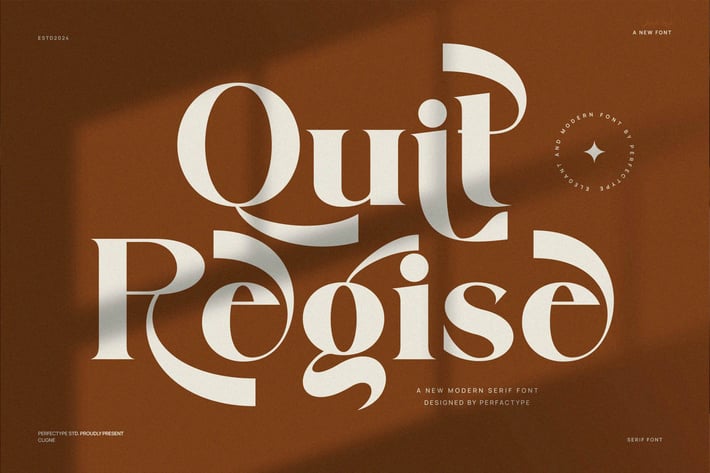
Quit Regise Elegant Serif Font Typeface
Quit Regise Elegant Serif is a refined and luxurious typeface designed to bring timeless beauty to your creative projects. With its graceful serifs, delicate curves, and exquisite ligatures, this font embodies sophistication and modernity in perfect harmony. Every letter is meticulously crafted to exude elegance, making it an ideal choice for premium branding, editorial designs, high-end packaging, and luxury advertisements.
The versatility of Quit Regise allows it to seamlessly adapt to a wide range of design aesthetics, from minimal and contemporary to bold and expressive. Whether you're designing a fashion magazine, an elegant website, or a chic boutique logo, this typeface enhances your visuals with a polished and high-end appeal. Its unique alternates and fluid ligatures add a distinctive character, ensuring your typography stands out with refinement and style.
Perfect for industries such as fashion, beauty, lifestyle, and luxury goods, Quit Regise captures attention with its high-contrast strokes and well-balanced letterforms. Whether used in large headlines or delicate body text, it maintains impeccable readability while elevating the overall design.
For those who appreciate detail-oriented typography with a modern, sophisticated touch, Quit Regise Elegant Serif is the perfect font choice. Elevate your branding, packaging, and editorial layouts with this beautifully designed typeface, and make a lasting impression with every word.